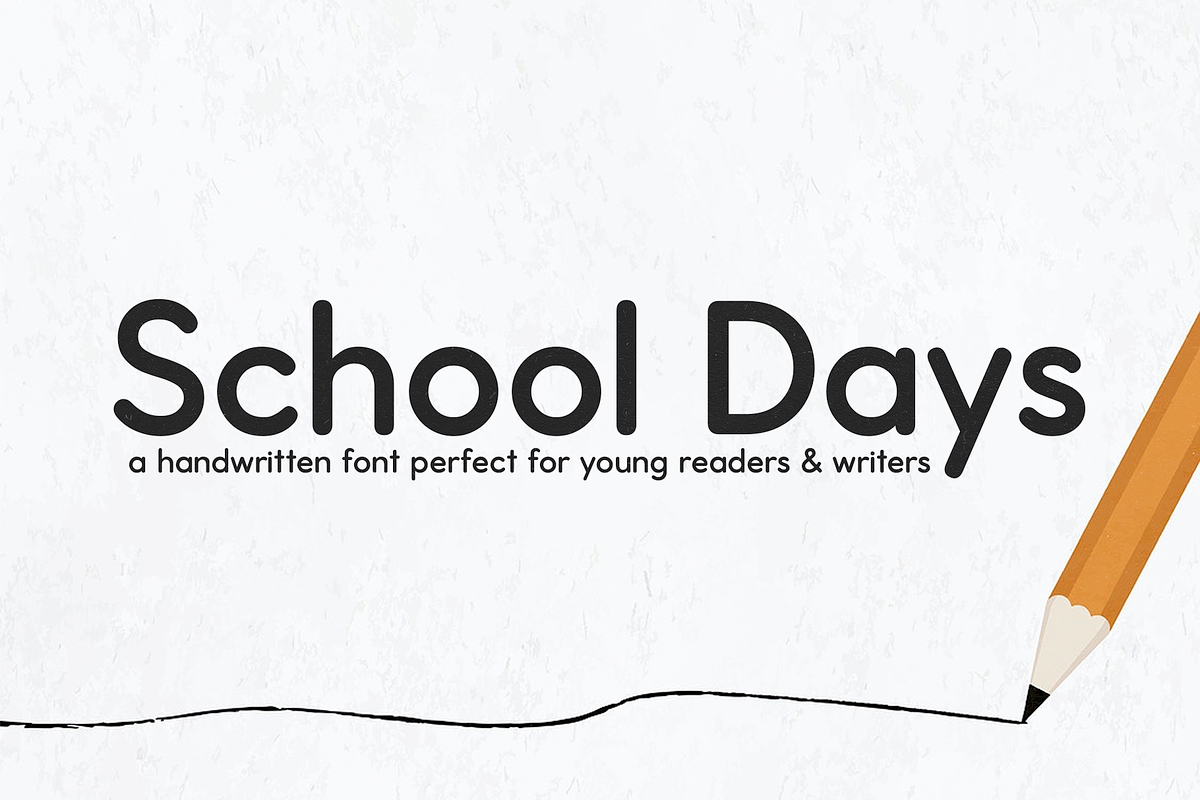
Please note, to use this font for commercial purposes, you must purchase the full version. School Days is a fun and playful font that captures the spirit of education and childhood. With its clean, easy-to-read letterforms and youthful charm, this font is perfect for creating school-themed designs, children's books, educational projects, and more. Whether you're designing for a classroom, a kid's brand, or a fun event, School Days adds a cheerful and approachable feel to your work. Test it out and enjoy free download access for personal use. Experience the fun, educational style of School Days Font Free Download before purchasing the commercial license. Add a youthful, playful touch to your designs with School Days.